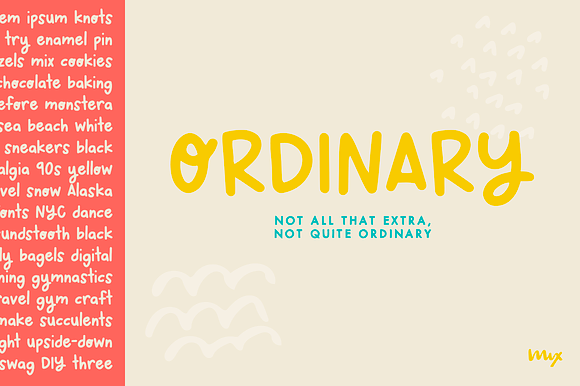
Ordinary — a Handwritten Font
MIX ORDINARYis a cutesy, swirly monoline print font that adds a touch of quirk and Sassitude to your designs. With its mix of basic letters and a few quirky ones, this font strikes the perfect balance between plain and cute. Whether you want to add a playful twist to your projects or simply want a font that stands out, MIX ORDINARY is the perfect choice.
Ordinary — a Handwritten Font by Mix Fonts fits naturally into Branding, posters, packaging, typography.